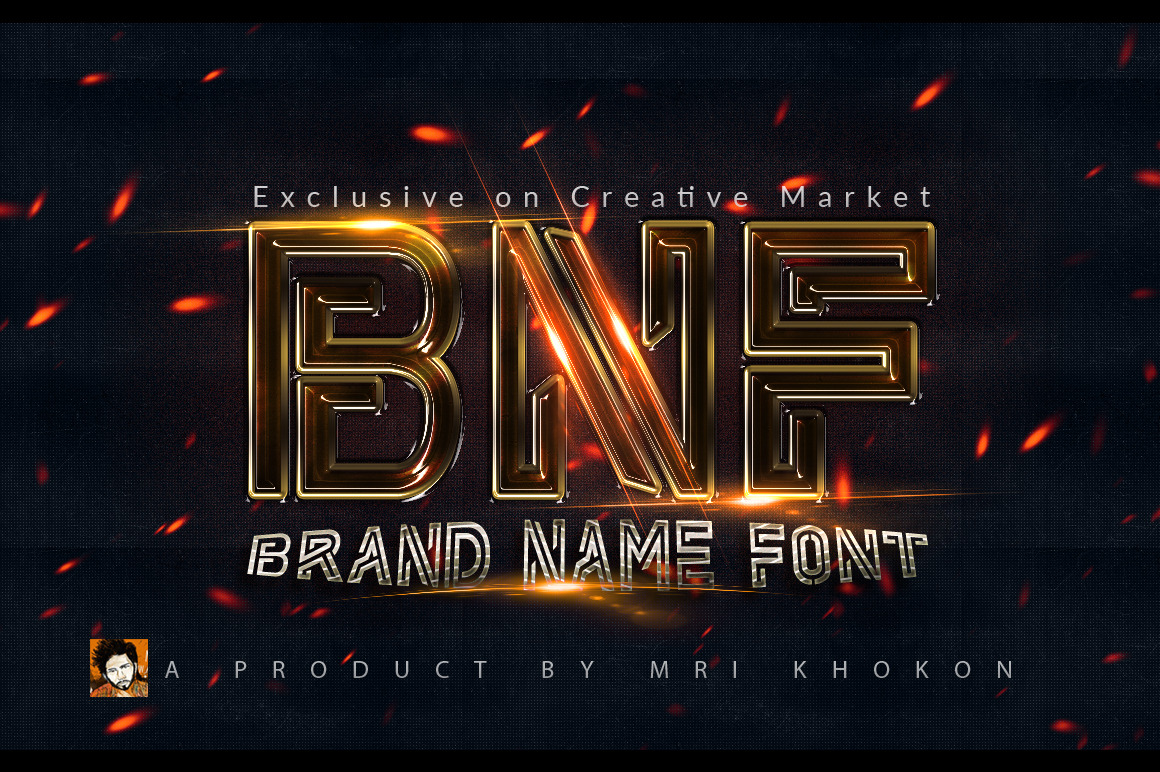
Brand Name Font
" Brand Name Font " Brand Name Font is a stylish Font. Available in Regular and Brand Name Line Font version with all special characters.
2 Style Font
Brand Name Font
Brand Name Line Font
Why chose Brand Name Font ?
Logo type
2 Style
Perfect line path
Easy to Mach Project